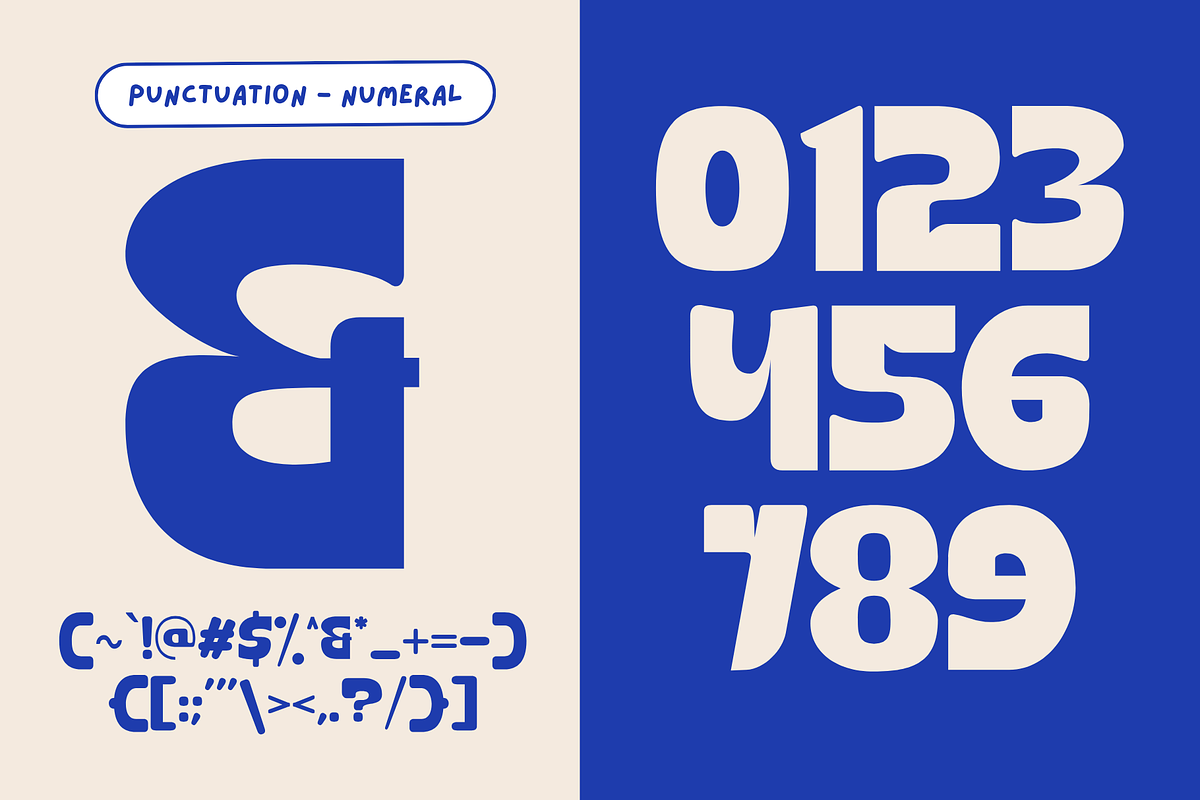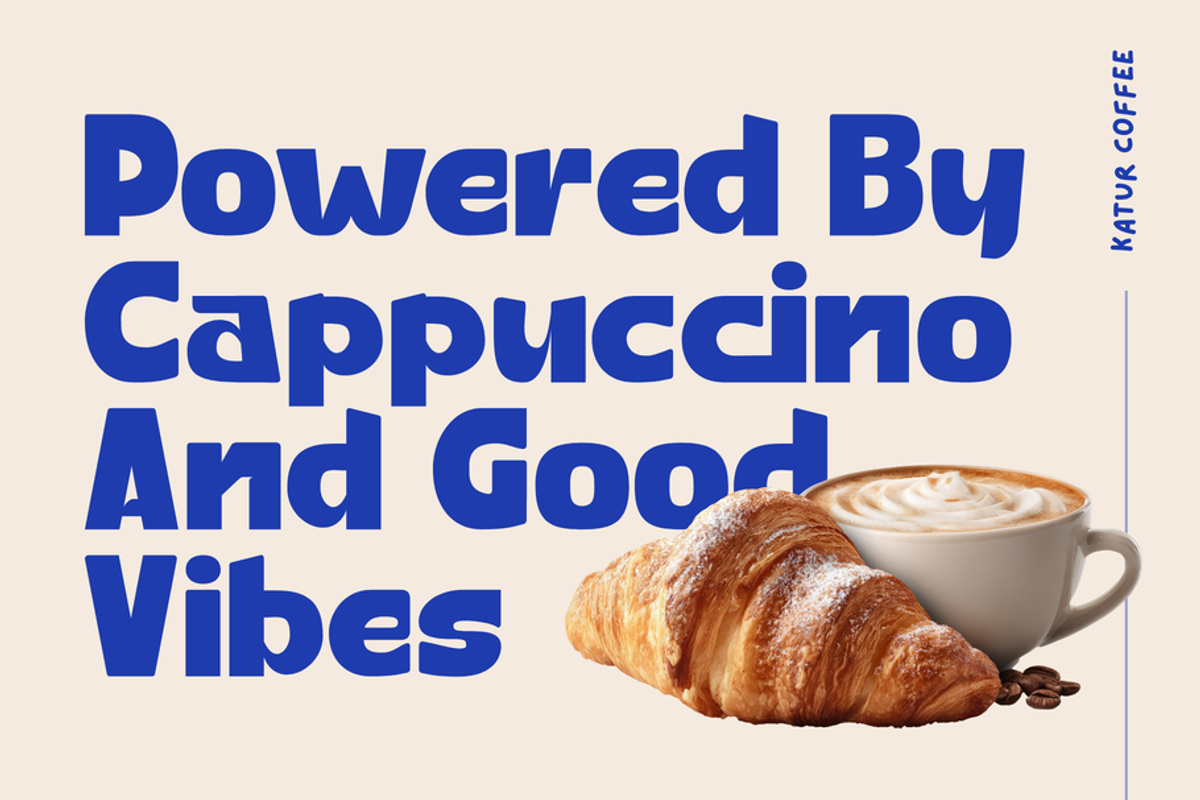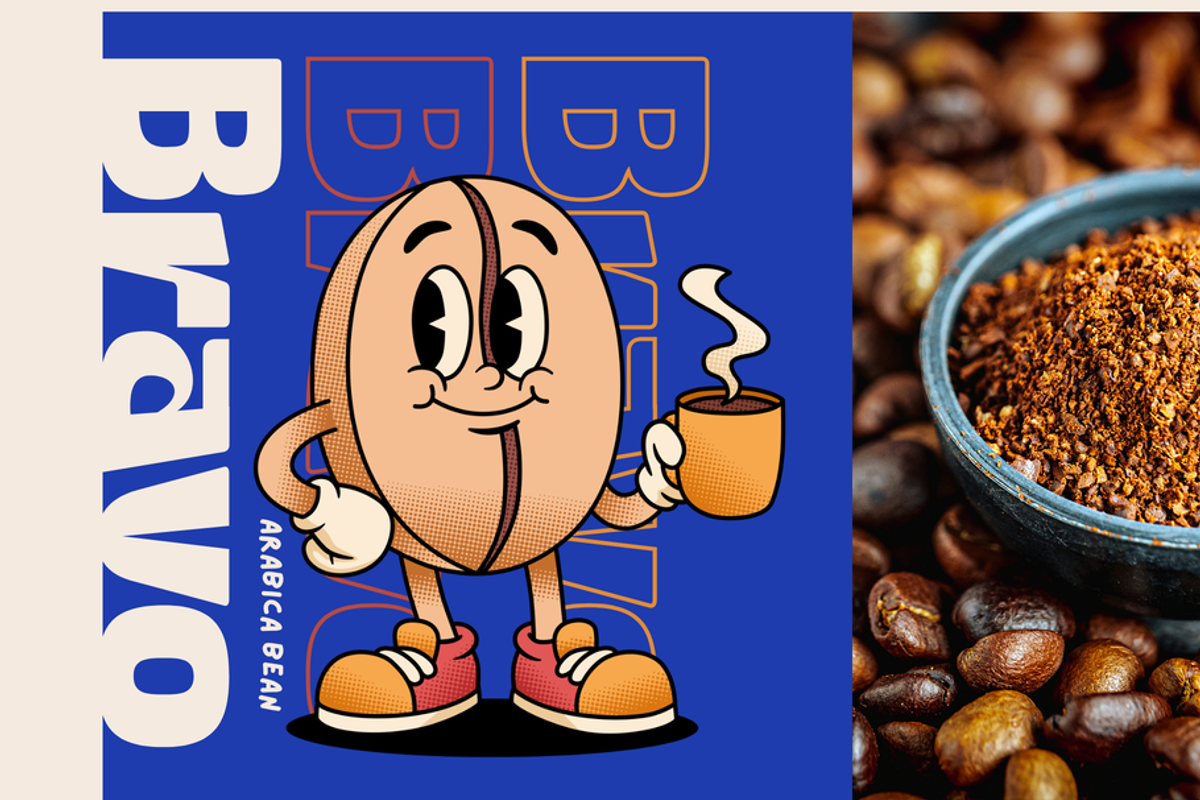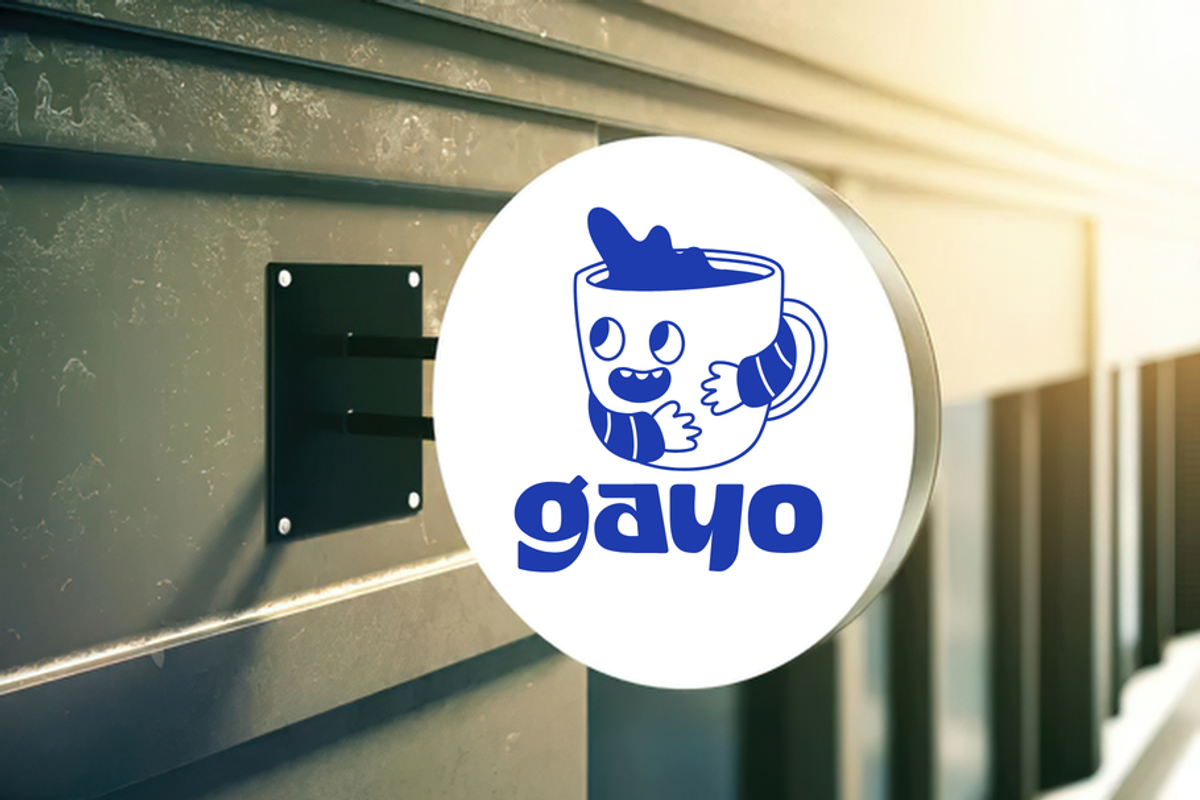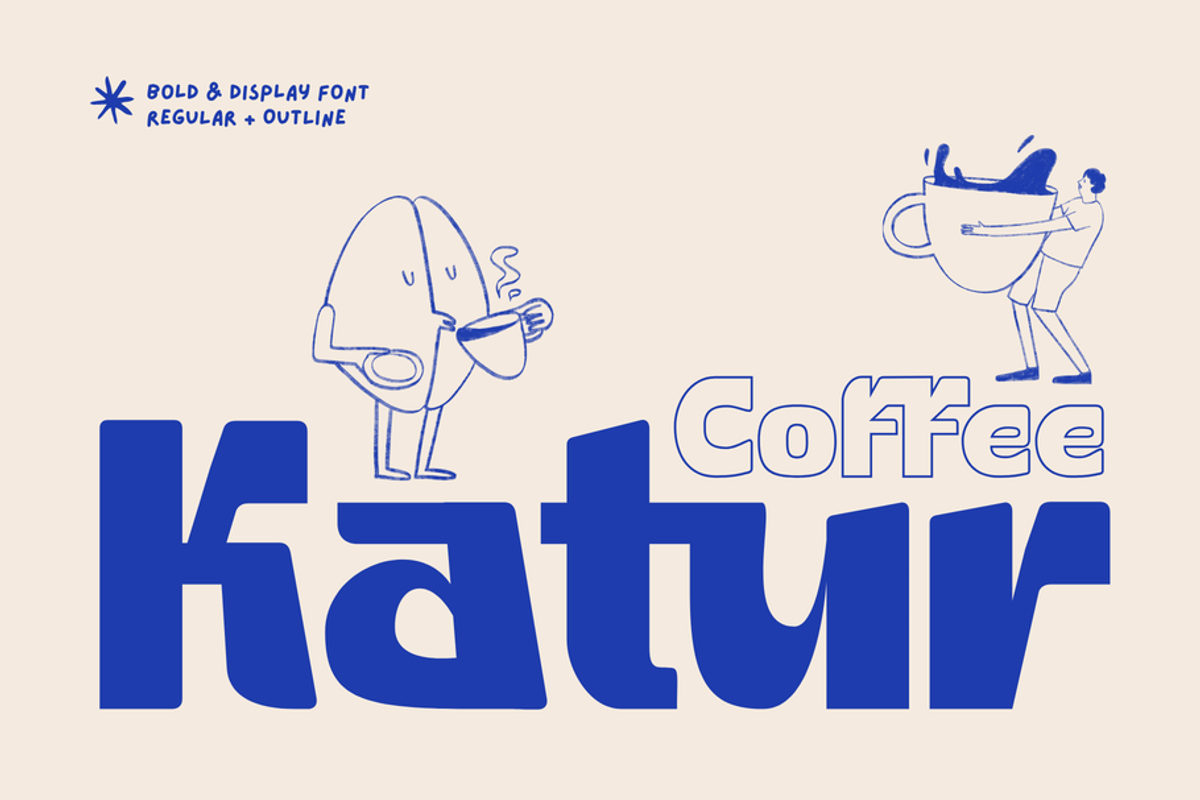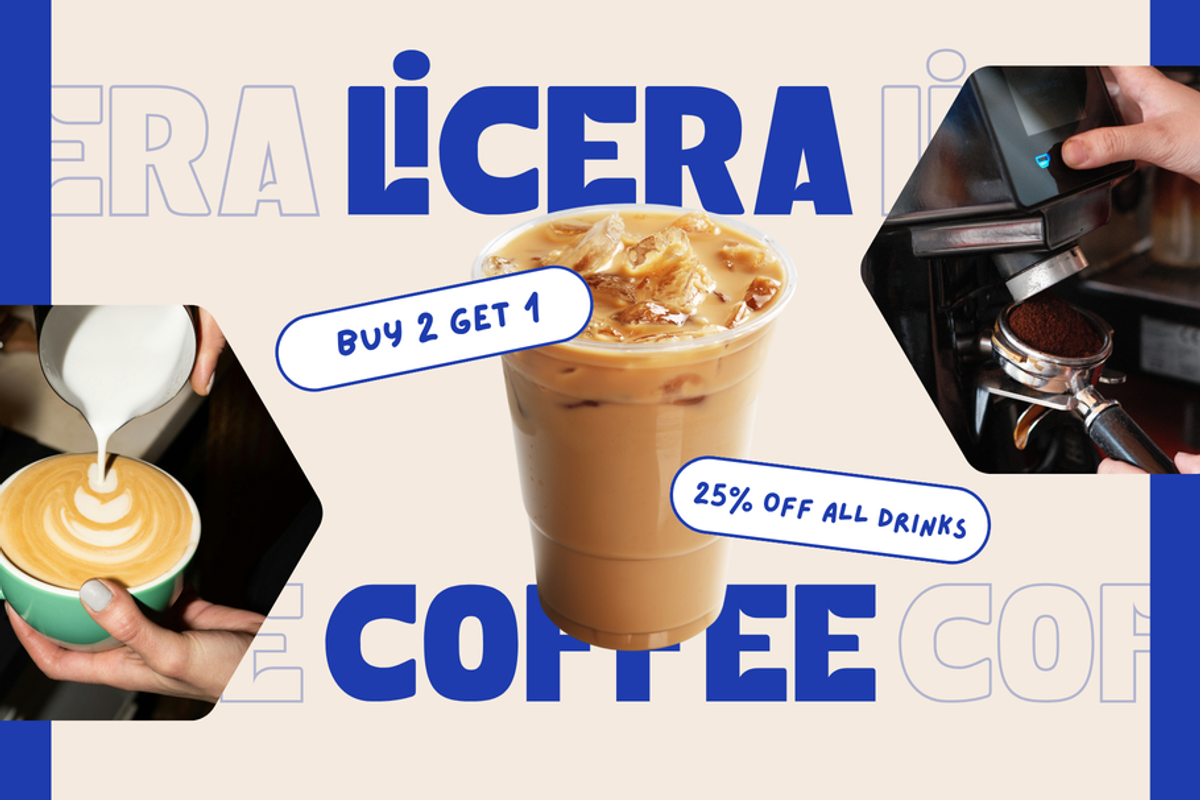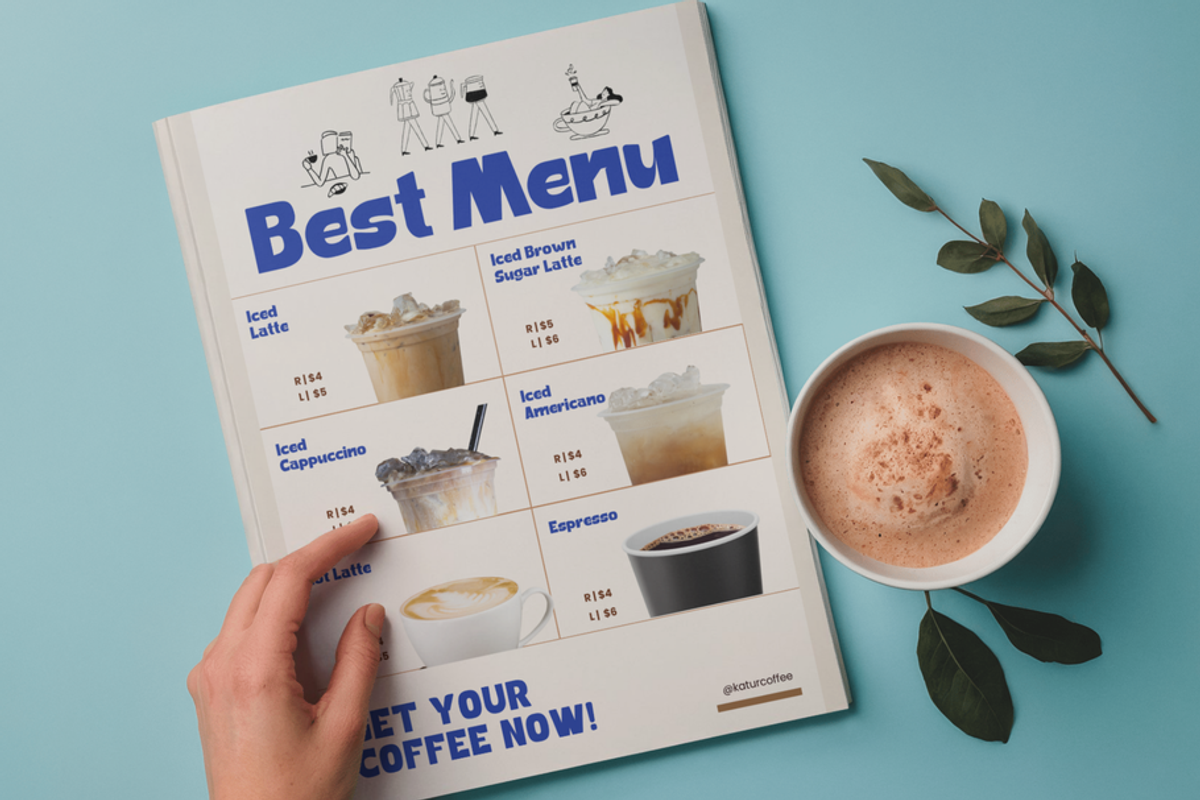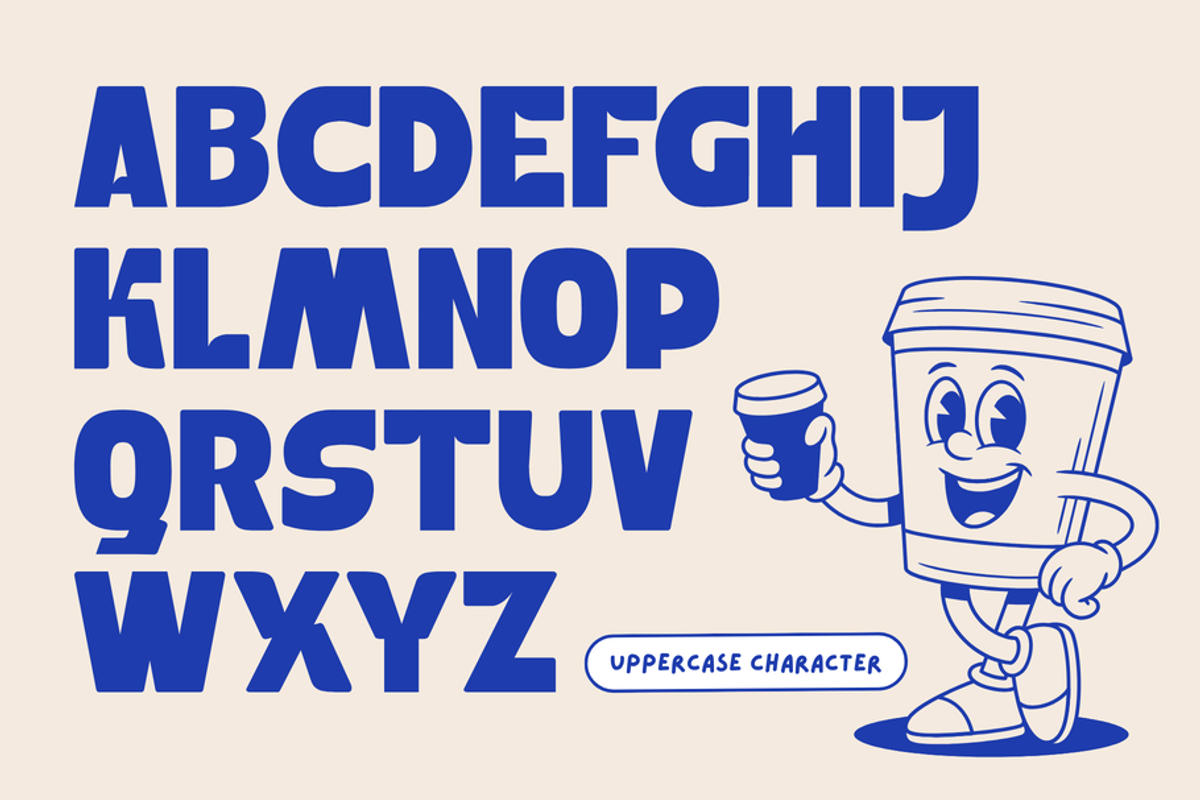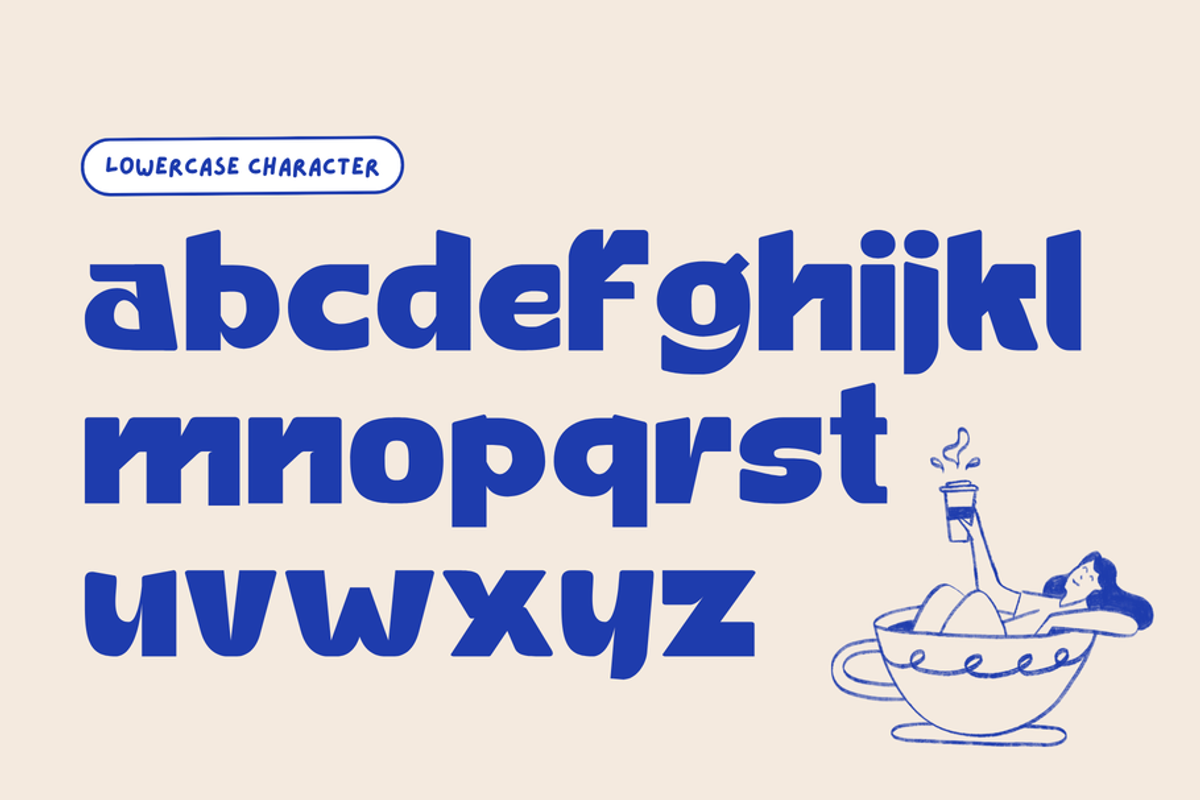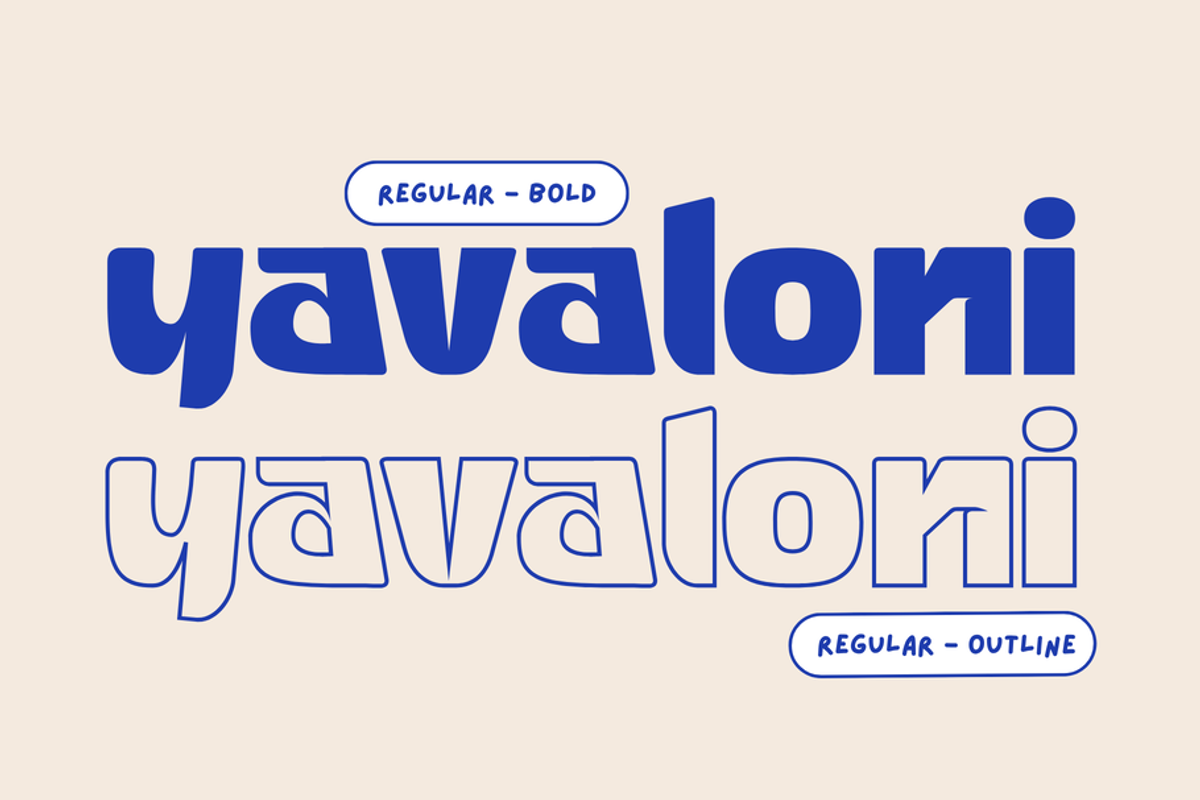
Katur Coffee - Bold Logo Food Font
Say hello to Katur Coffee Font
Katur Coffee is a bold display sans font crafted to energize modern coffee branding. Featuring clean geometric forms with a stylish outline bonus, it brings a fresh yet edgy look to logos, menus, and promotional designs. The ligature-rich style adds a unique rhythm, creating seamless letter connections that feel both dynamic and refined. Perfect for coffee shops, food packaging, and urban branding, Katur Coffee blends contemporary aesthetics with playful character, making every design stand out with confidence and flavor.
FEATURES : Uppercase, Lowercase, Number, Punctuation, Multilingual, PUA Encode, Opentype Character, Ligatures.